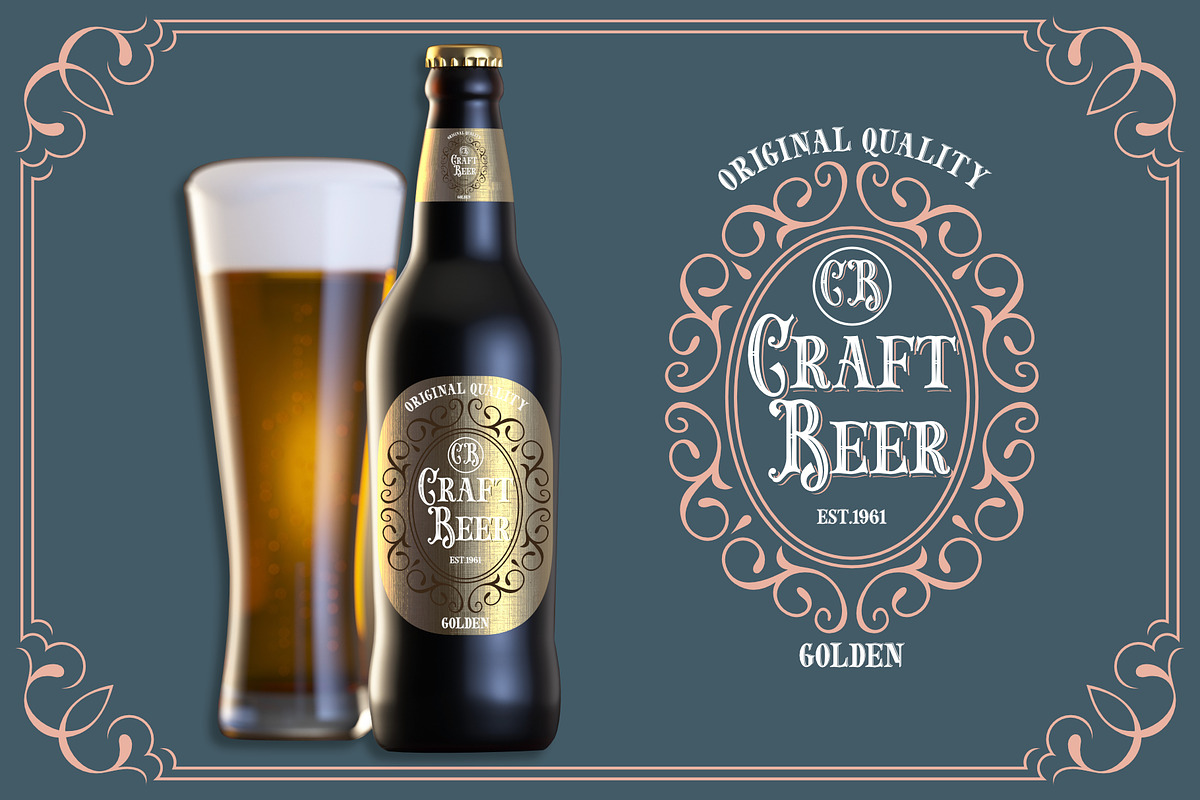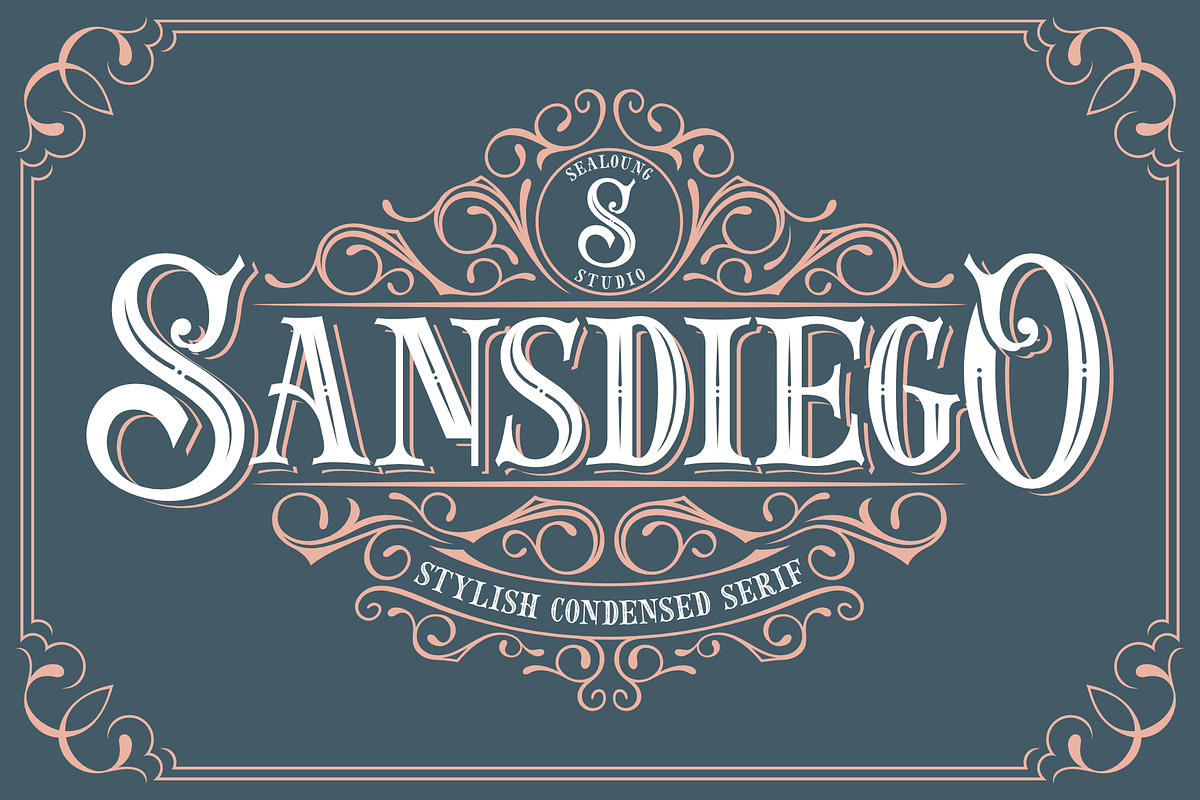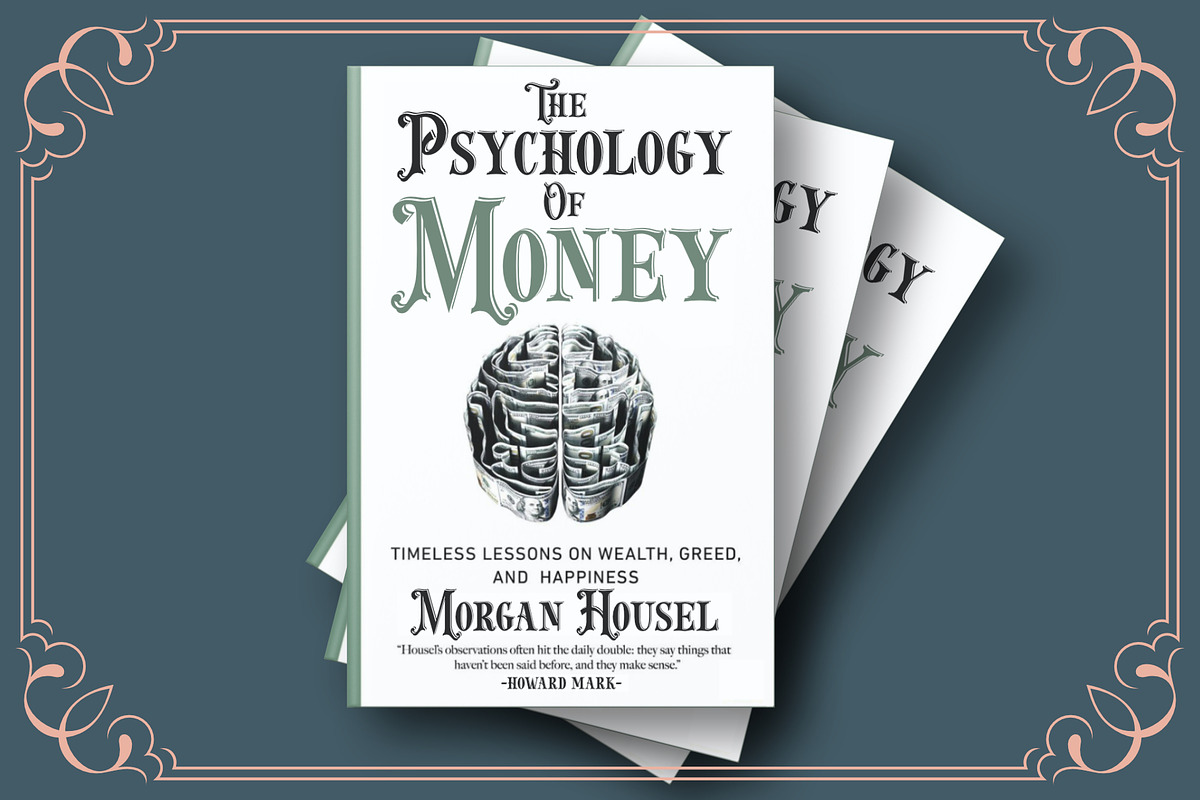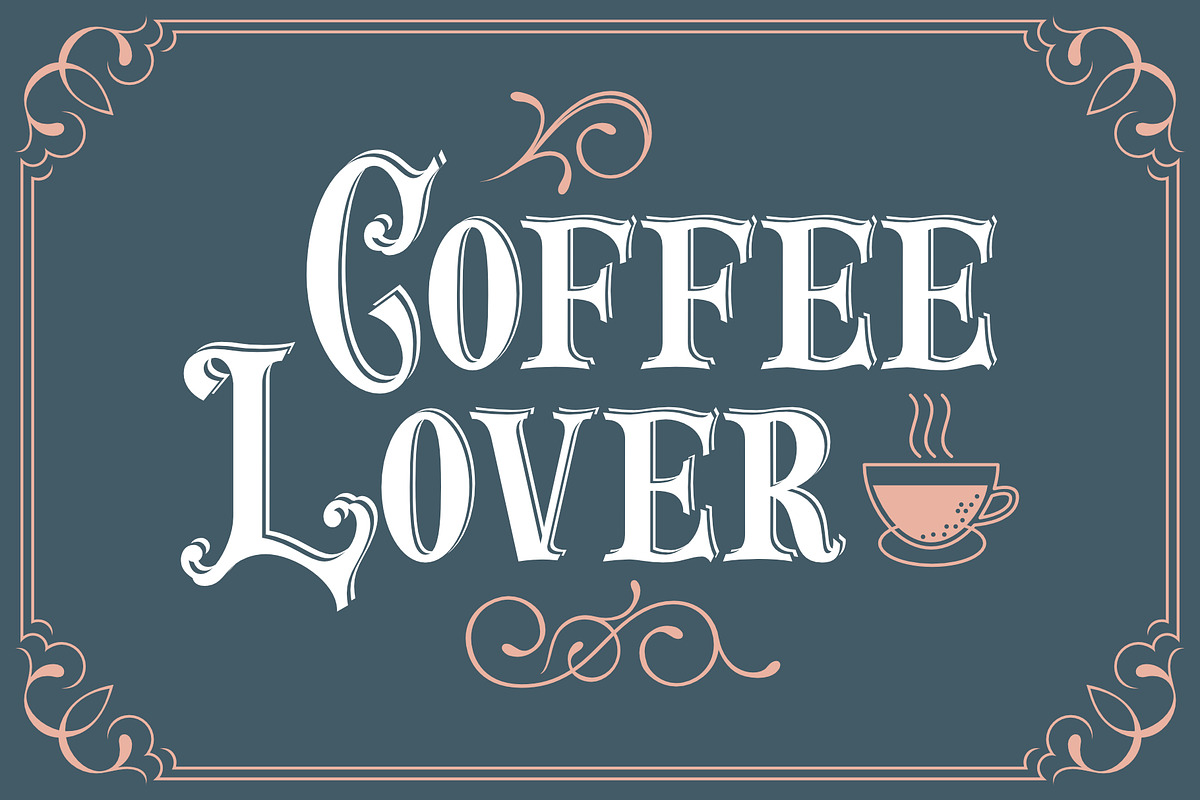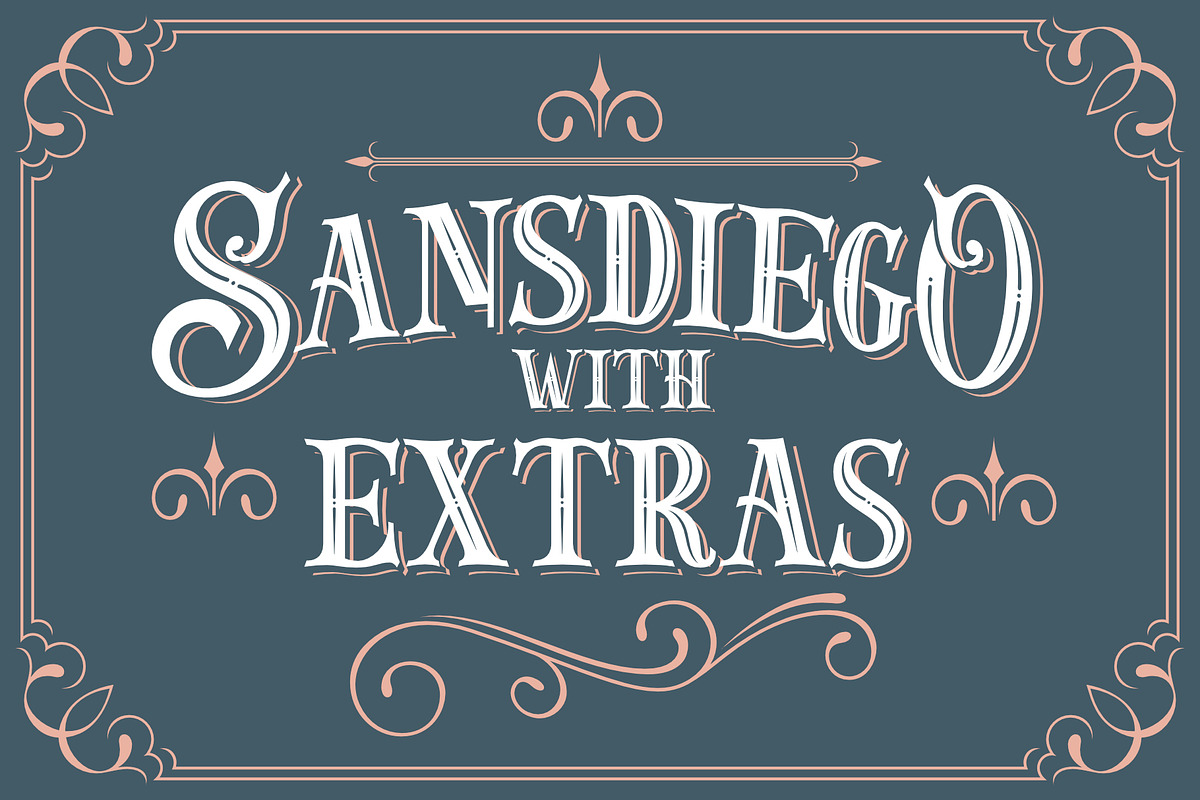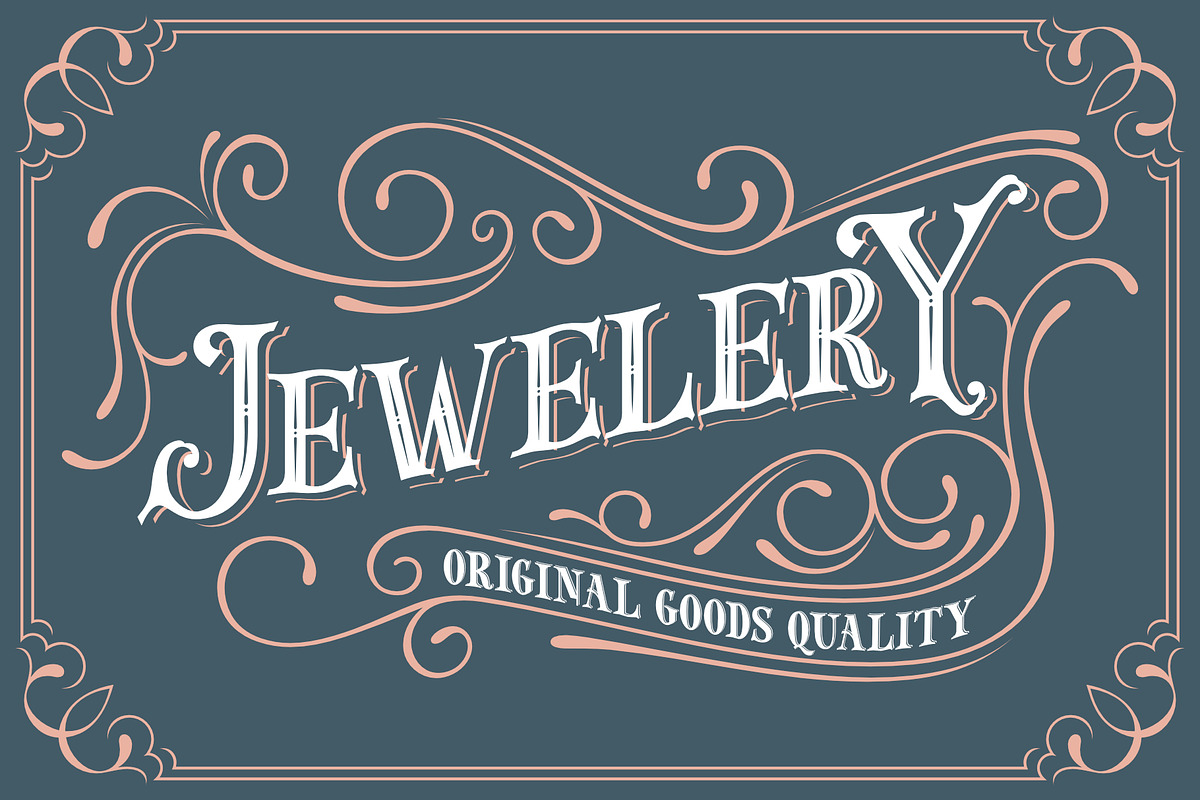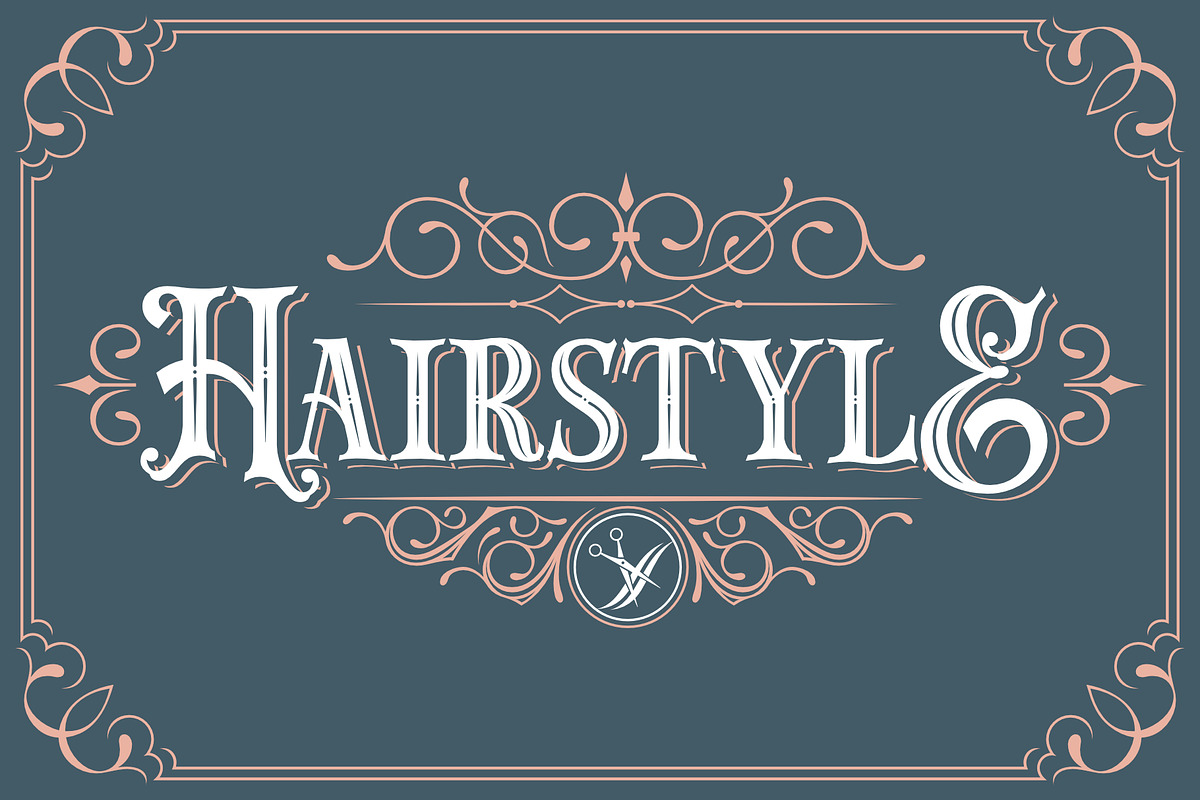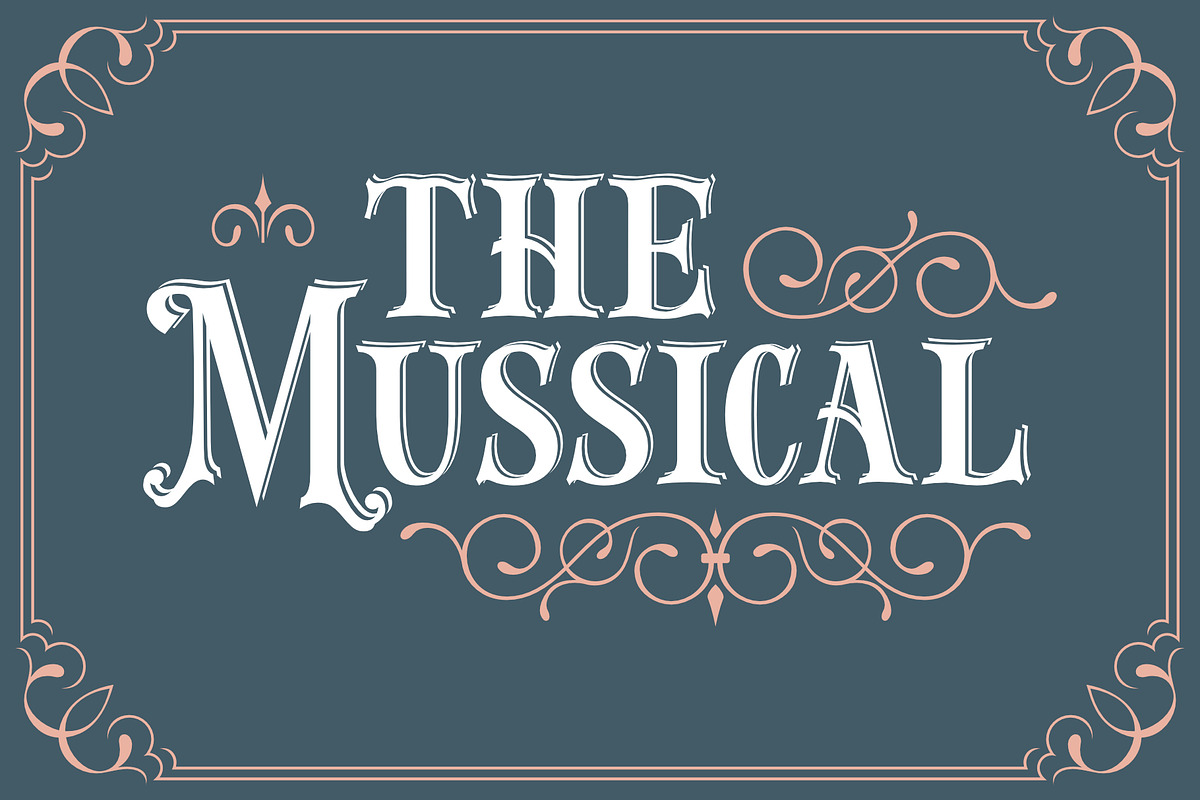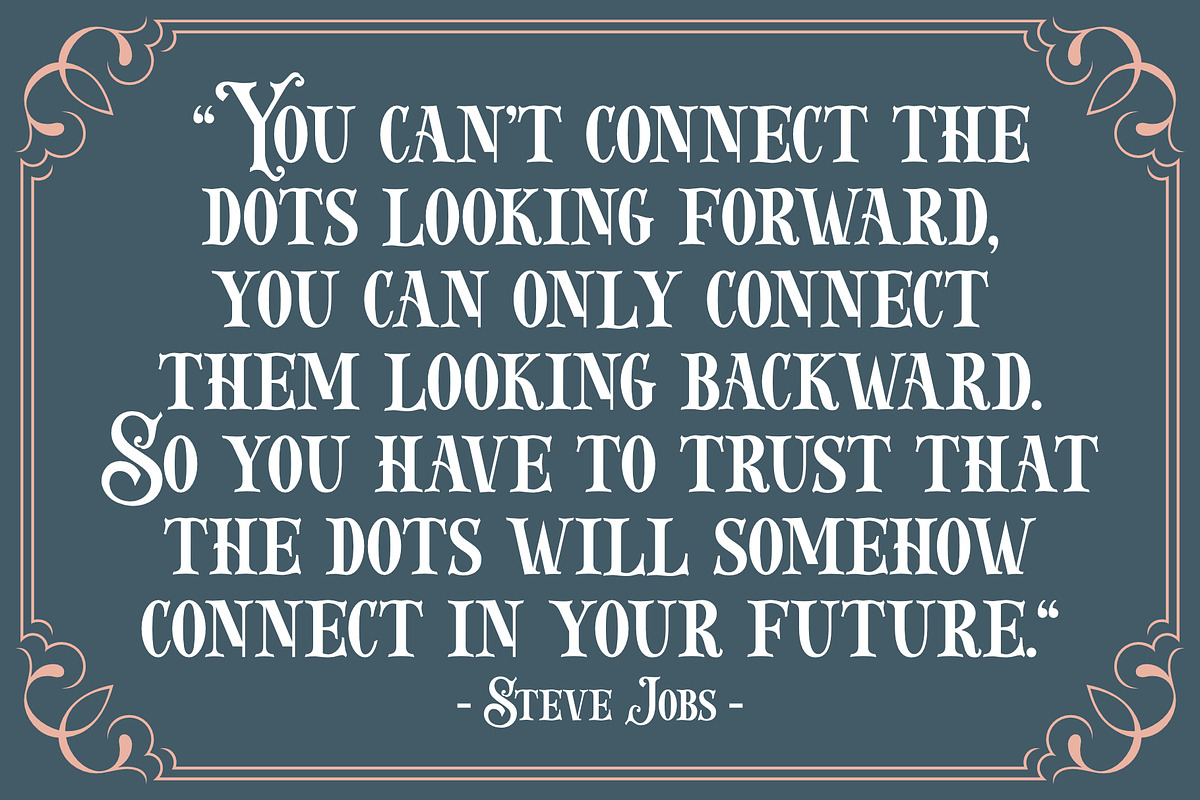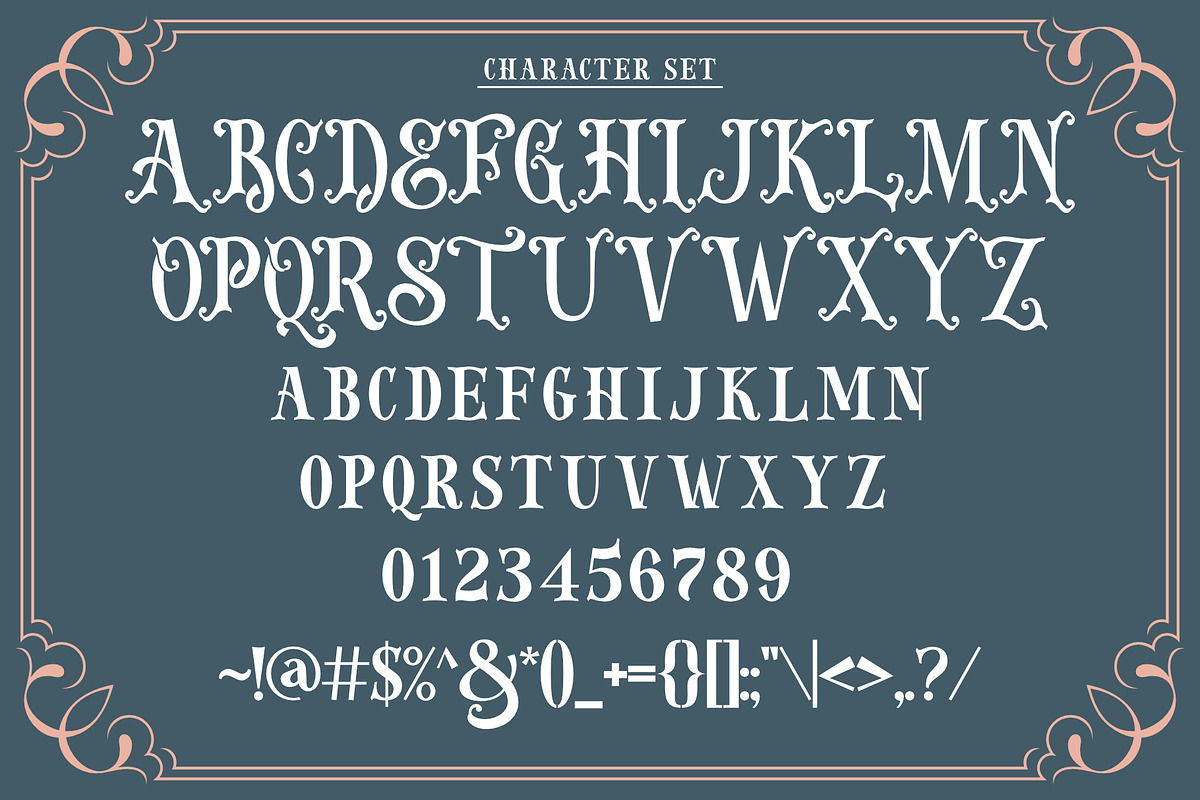
Sansdiego
Introducing our new exploratory Sansdiego, this typeface inspired by European empire-era forms of writing. Sansdiego typeface is perfect for classic Victorian themed designs, beer packaging, whiskey, barbershop, pomade, tattoo studio logos and so on. This font comes with additional effects: Normal - style - double - Shadow, packaged as a layered font. Sansdiego is an all caps font, carefully crafted with a great ornamental taste.
Featured Fonts:
- Smallcaps
- Numbers & symbols
- Accented characters: ÀÁÂÃÄÅÆÇÈÉÊËÌÍÎÏÑÒÓÔÕÖØÙÚÛÜÝÞŒŠŽßàááâãäåæçèéêëìíîïñòóôõöøùúûüýþÿœš ž